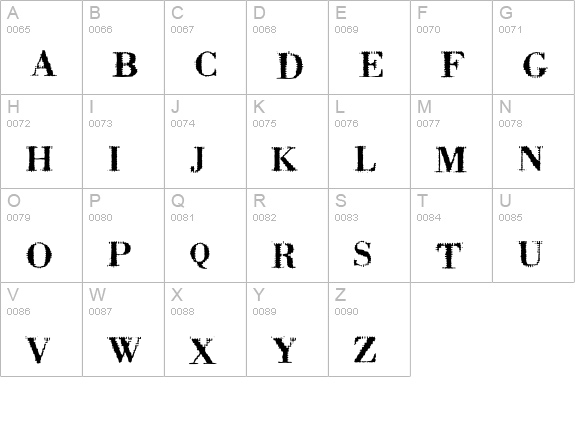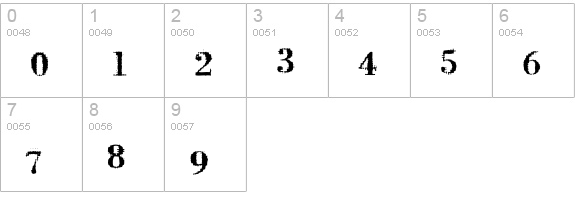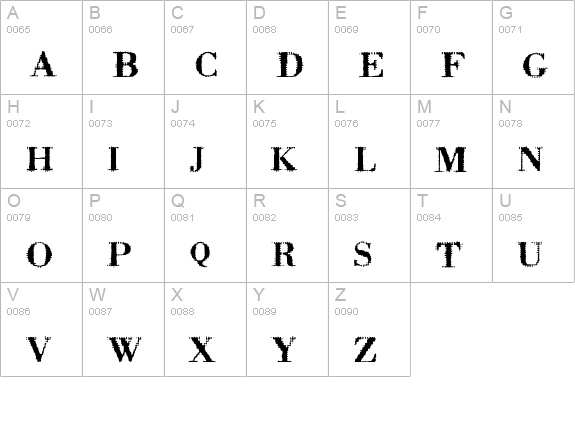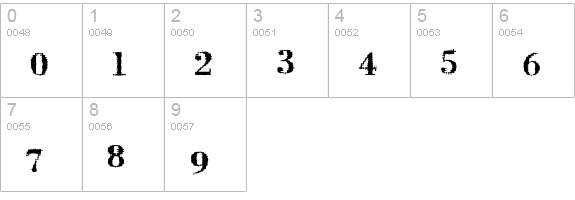
Badoni Font Details
Badoni font is a sophisticated and elegant typeface that exudes a sense of timeless beauty. With its sleek lines and gracefully curved serifs, Badoni font is perfect for adding a touch of class to any project. Whether you're designing invitations, crafting a logo, or creating elegant signage, Badoni font will elevate your work to the next level. What makes Badoni font even more appealing is that it is completely free to download. You can easily access this stunning font at FontsMarket.com, where you can add it to your collection without any cost. Don't miss out on the opportunity to enhance your designs with the exquisite Badoni font - download it today and see the difference it can make!